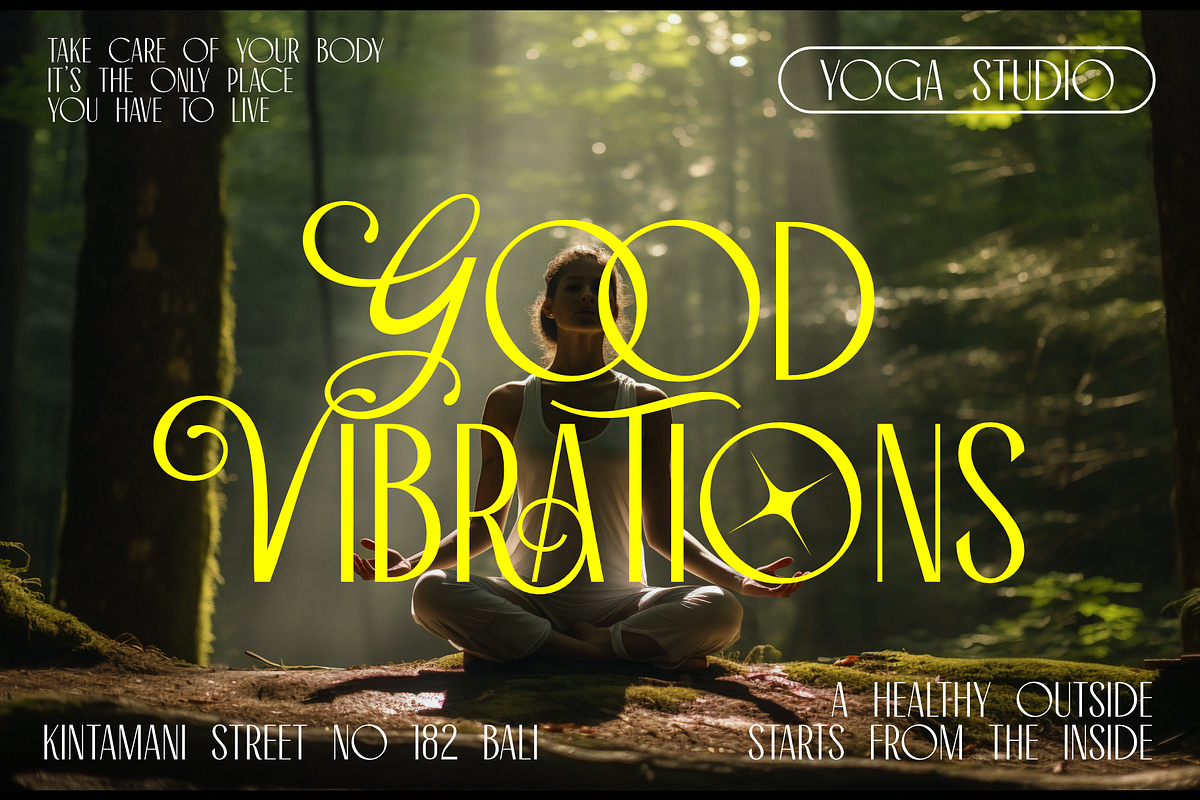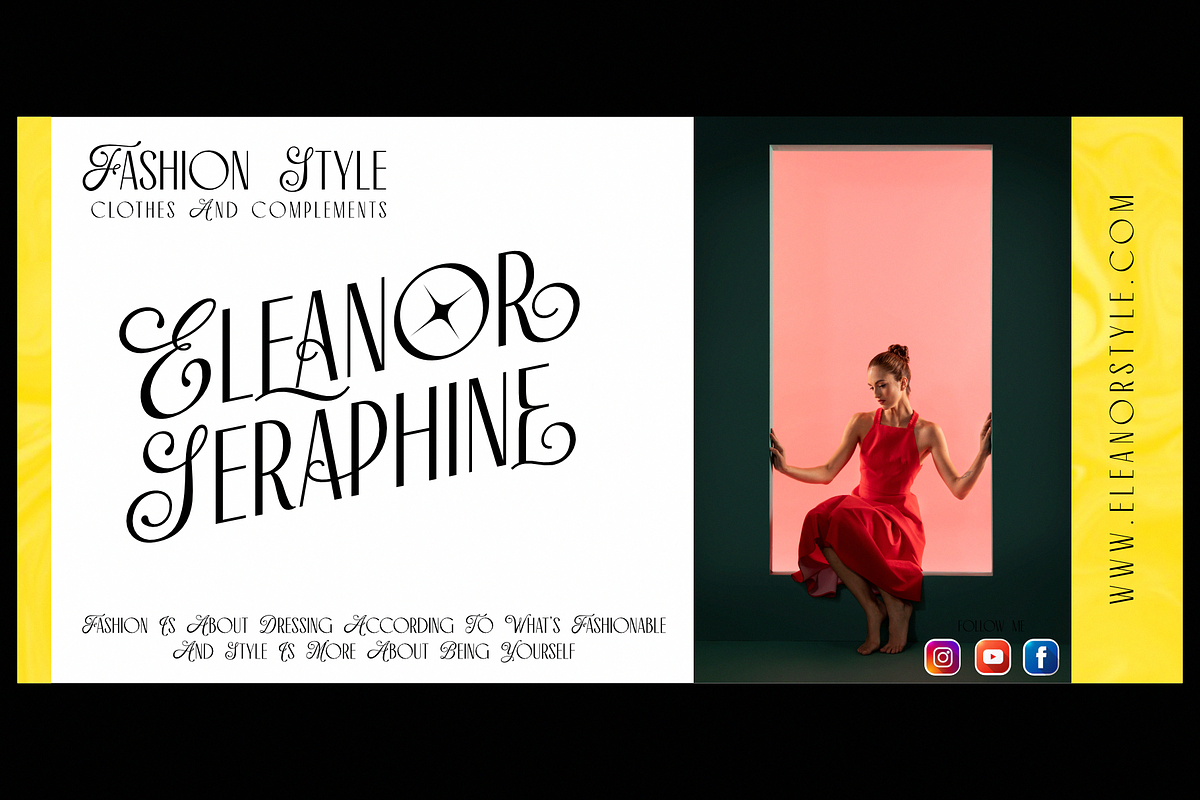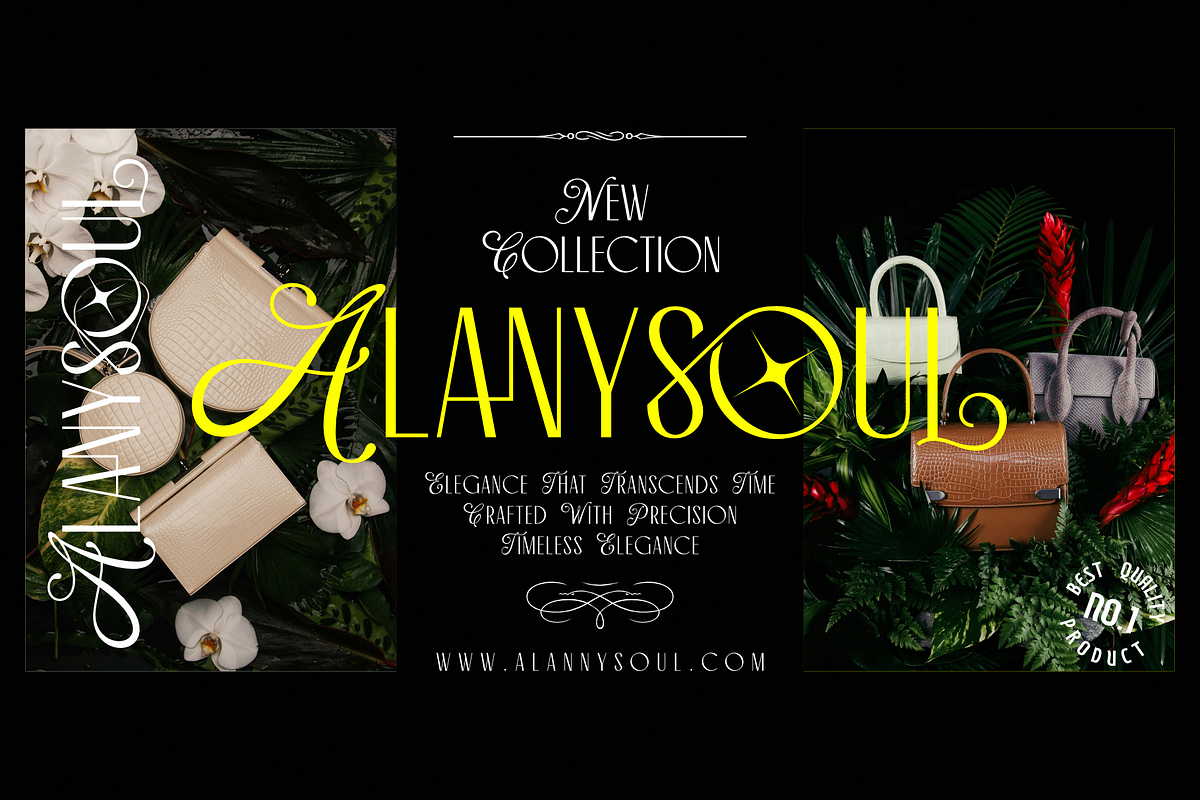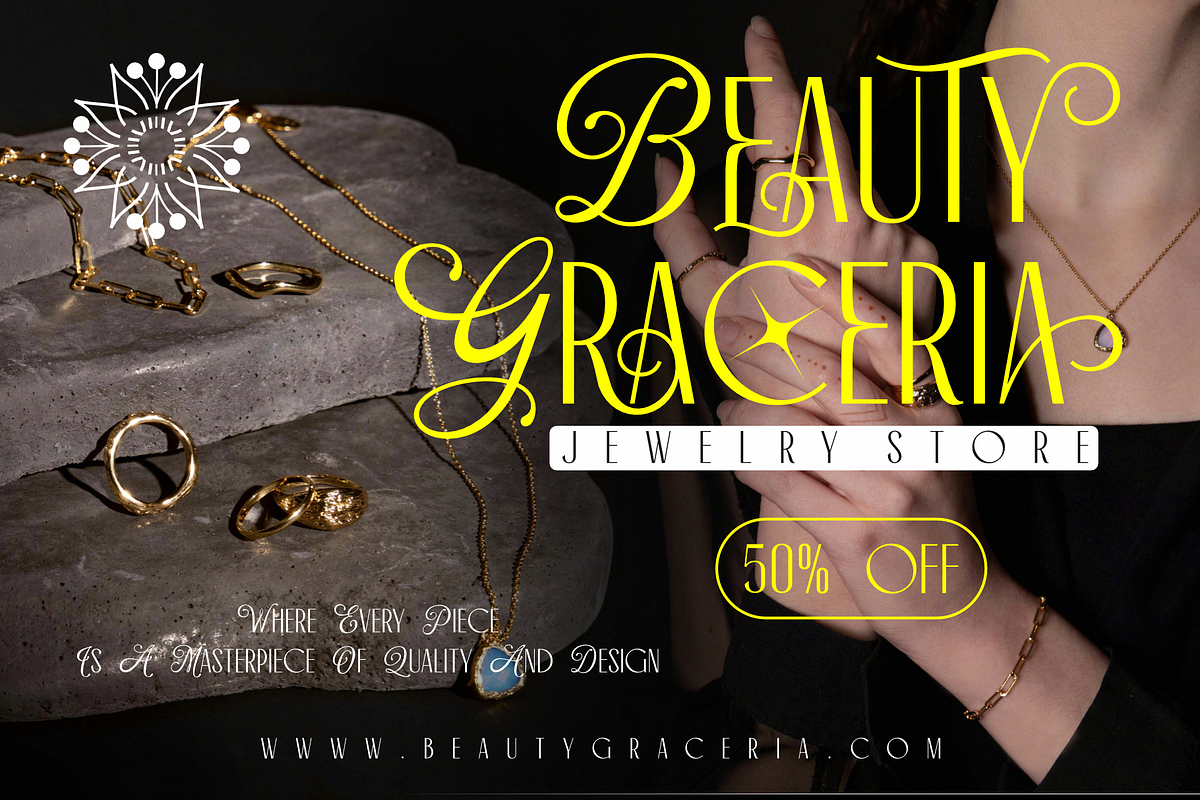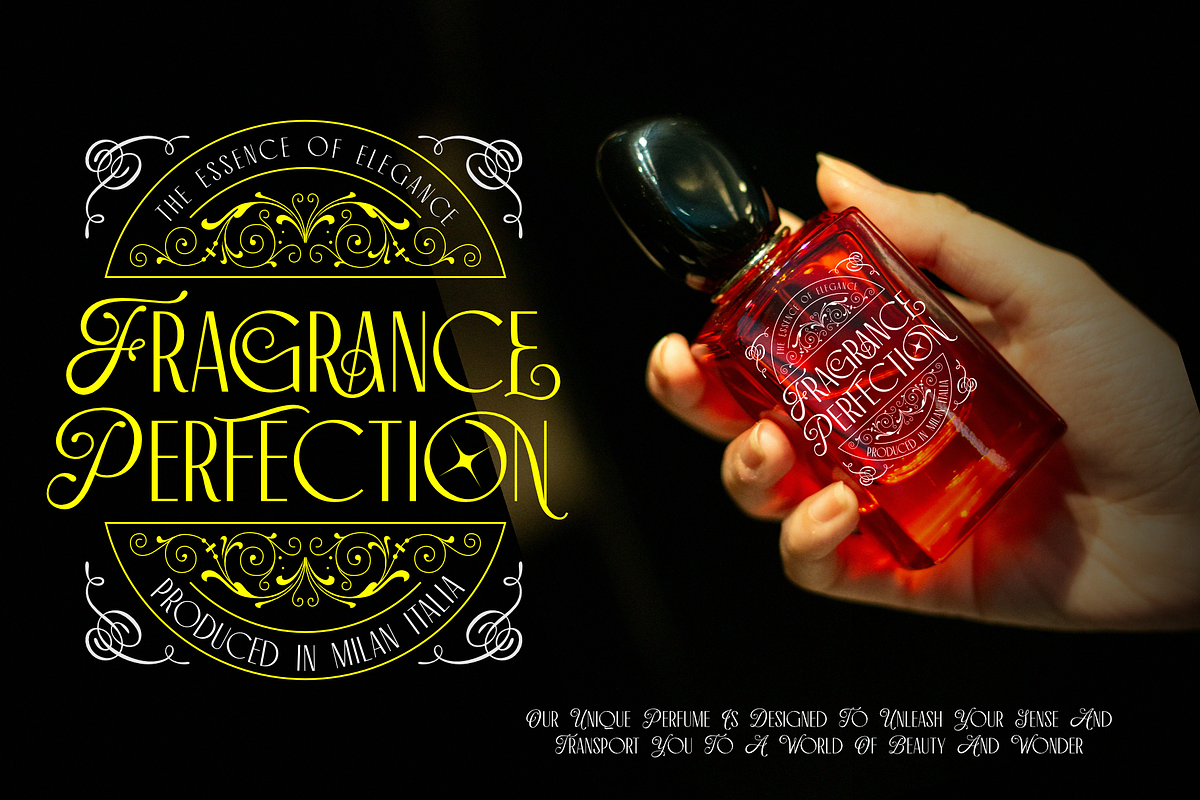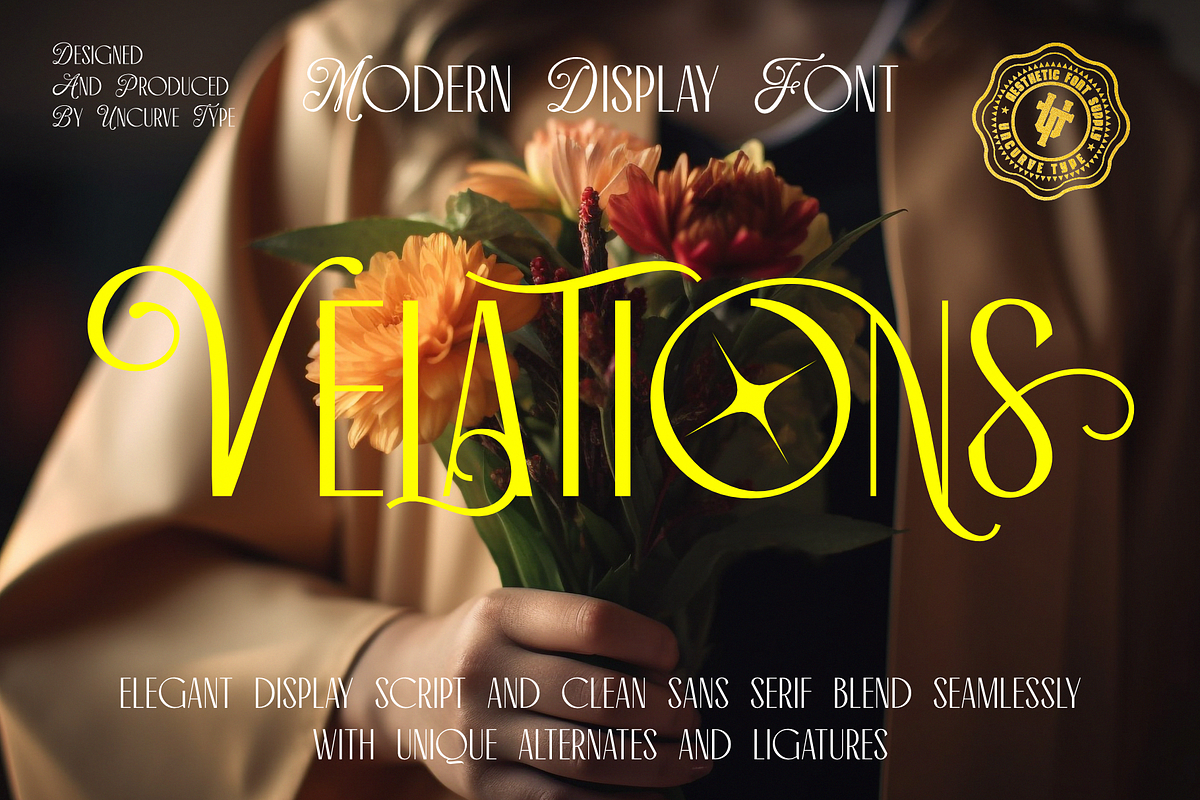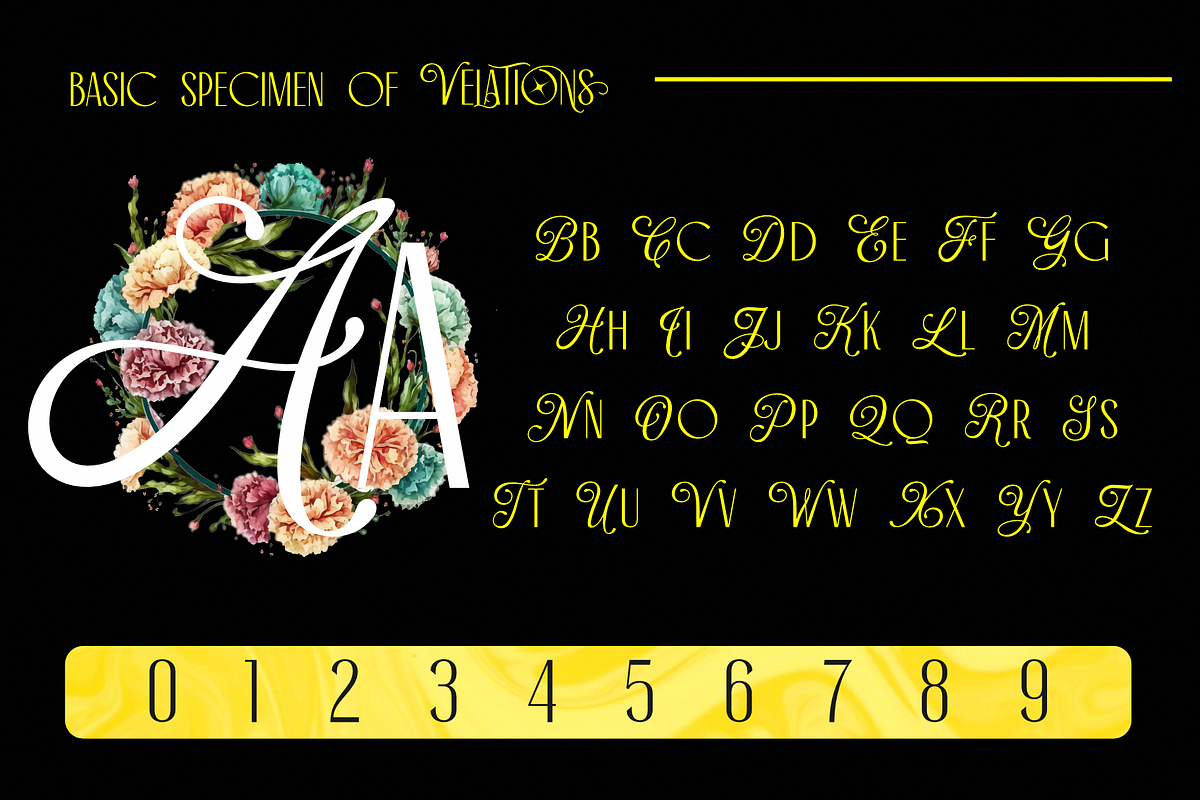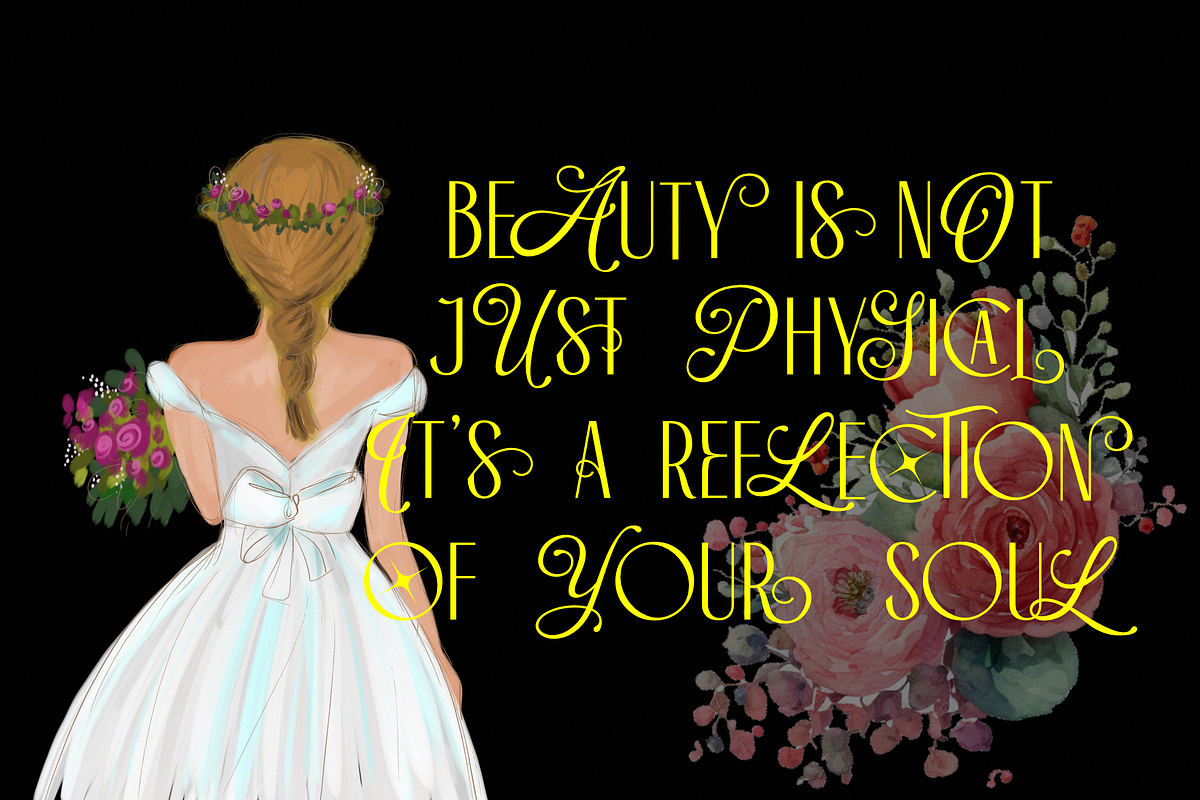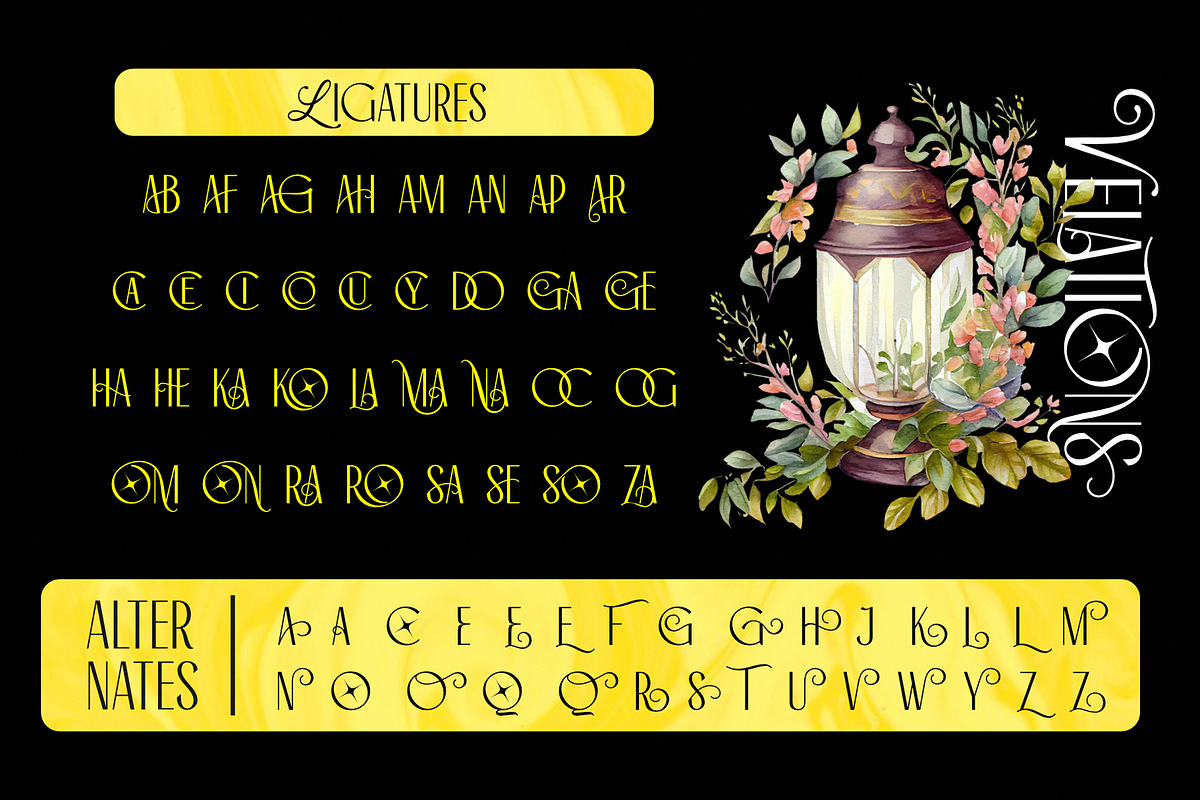
Velations
Velations is a stylish and unique display font that beautifully combines script-style uppercase letters with clean sans-serif lowercase letters. Featuring a selection of alternate characters and ligatures, Velations offers endless creative possibilities to make your designs look effortlessly elegant and modern. Perfect for projects that demand a beautiful, feminine, and sophisticated touch, Velations is ideal for branding, postcards, greeting cards, product labels, wedding invitations, fashion, magazines, book covers, jewelry packaging, quotes, perfume branding, social media posts, and more. This font adds a chic and timeless look to any design, making it stand out with style and grace.